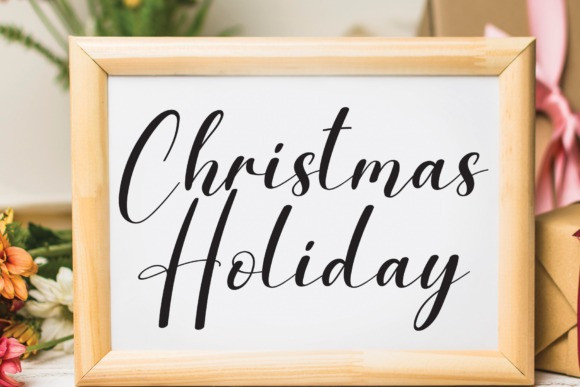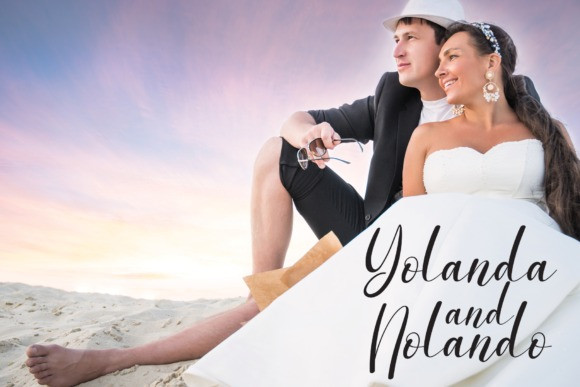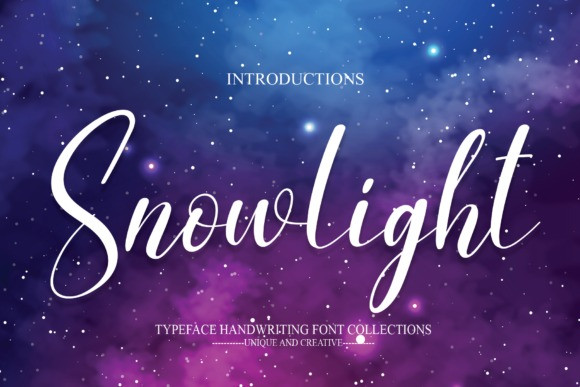
Snowlight Font
Snowlight Font is an alluring script font. This font features letters that are perfect for wall displays, wedding invitations, social media post logos, advertisements, product packaging and more.